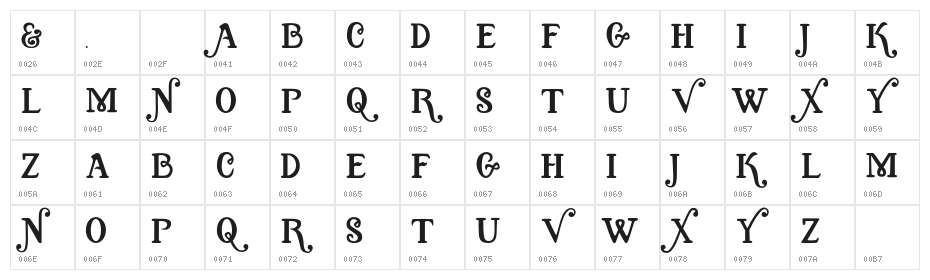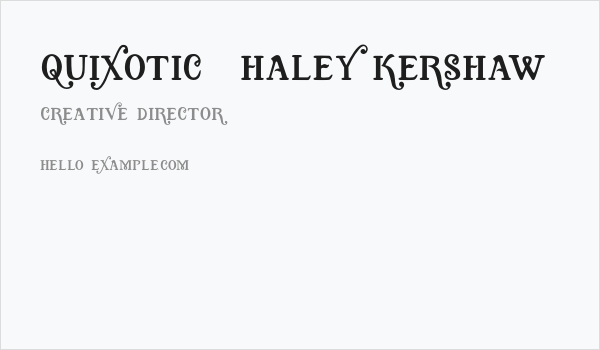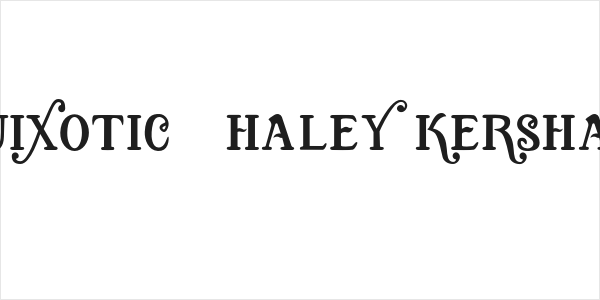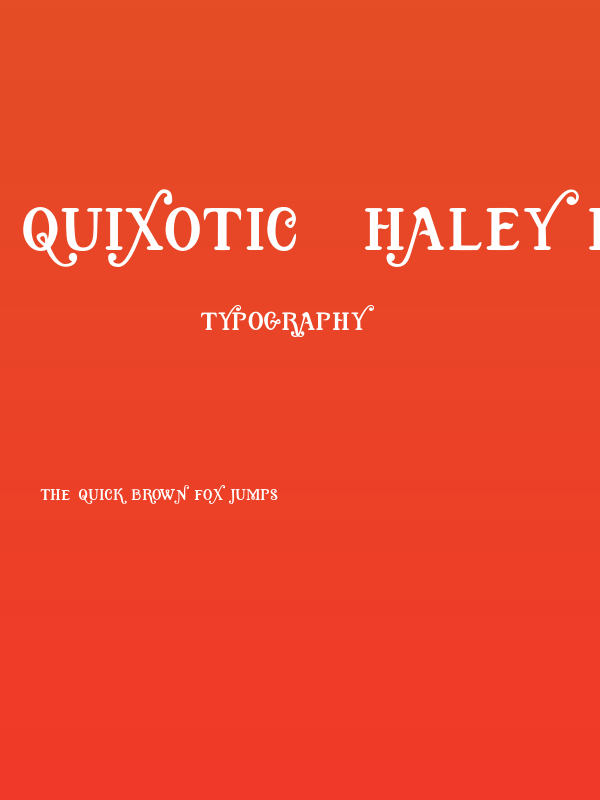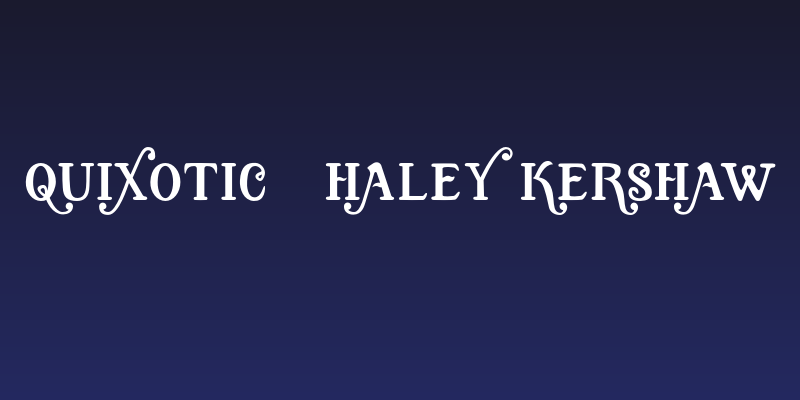
Quixotic, Haley Kershaw Font
Quixotic, Haley Kershaw Description
This font features a whimsical and decorative style with a playful twist on traditional serif forms. The characters are adorned with unique flourishes and curls, giving them an ornate and artistic appearance. The uppercase letters are particularly elaborate, with intricate details that add a sense of elegance and charm. The overall design is bold and eye-catching, making it suitable for creative and expressive projects. The font maintains a consistent weight throughout, ensuring readability while still offering a distinct personality. Its decorative nature makes it ideal for use in headlines, logos, and other design elements where a touch of flair is desired.
Proposed ProjectsIdeal for creative projects such as invitations, posters, branding, and artistic designs.